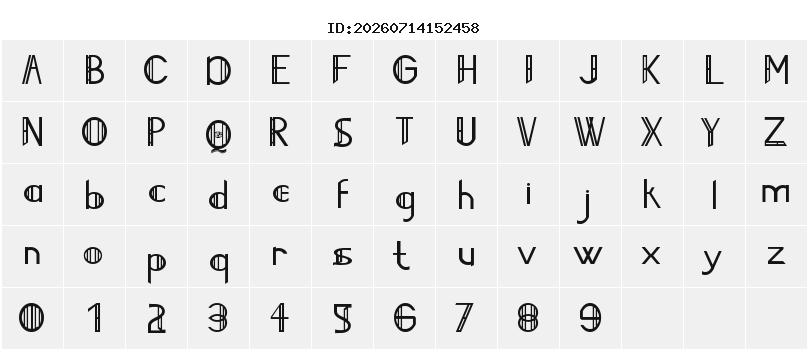
• Font Name: Jailed Celts
• Full Font Name: Jailed Celts
• Designer: Matias Romero
About Jailed Celts.ttf
Jailed Celts.ttf is a modern, elegant sans-serif font designed for ultimate readability and visual harmony. Perfect for branding, headlines, web design, and print materials.